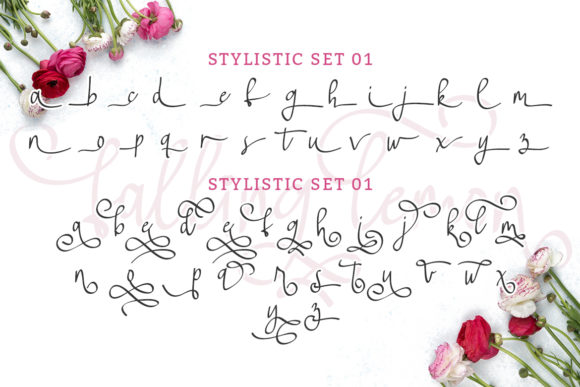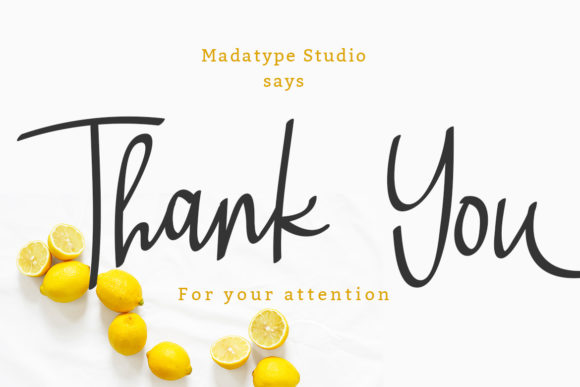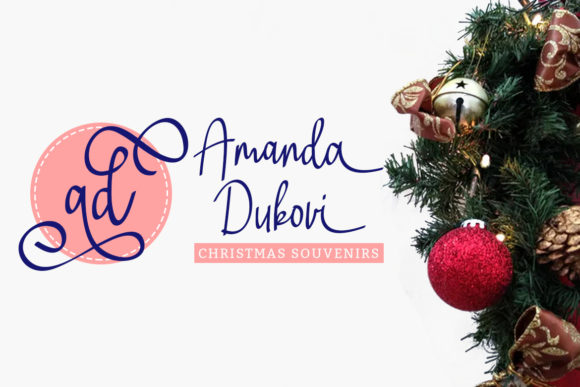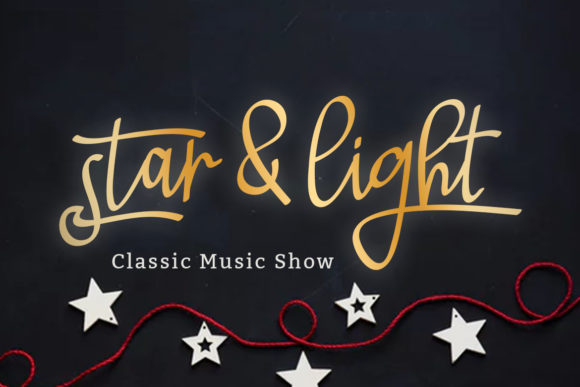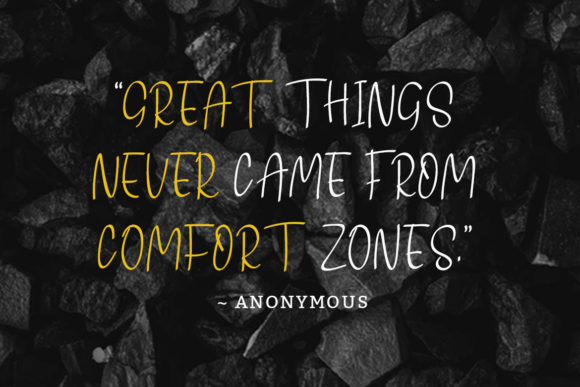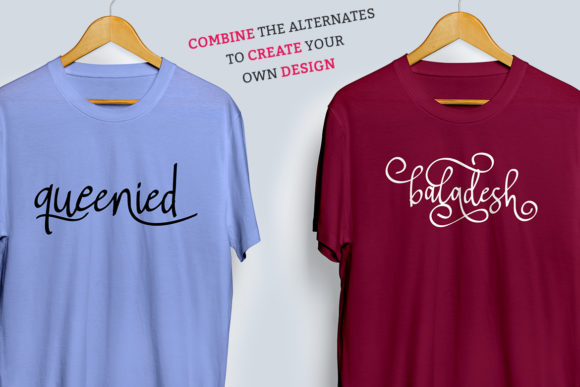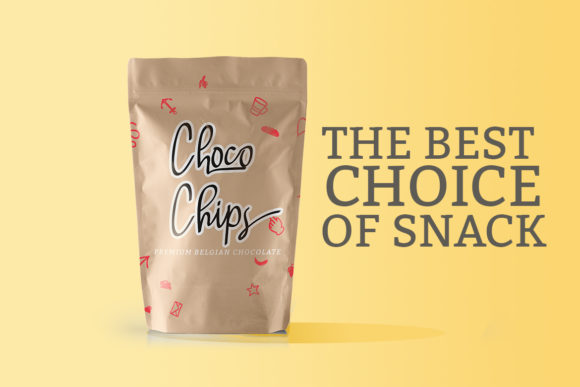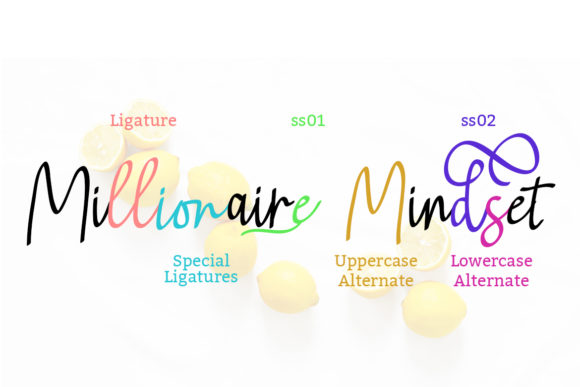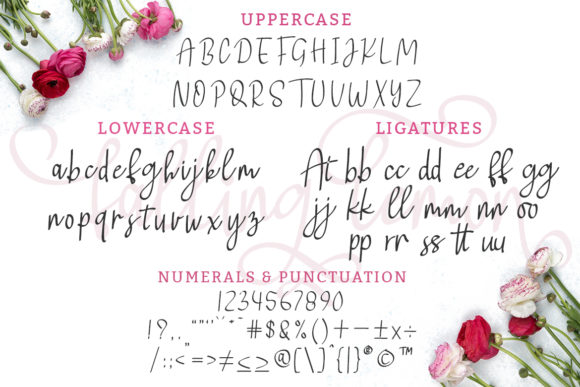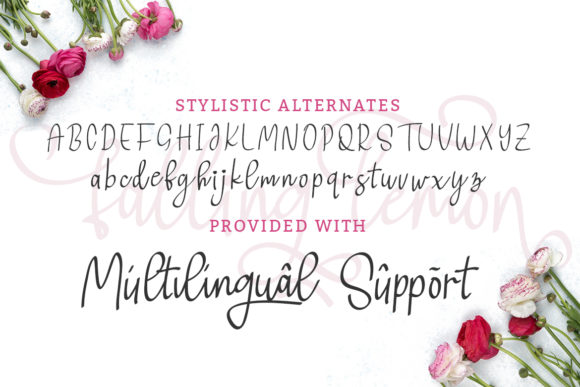
Falling Lemon Font
About Falling Lemon Font
Falling Lemon is natural handwritten font, manually written using a calligraphy pen. This font is perfect for logos, branding, t-shirt design and anything else that needs a natural calligraphy touch. Ignite your creativity with the many included alternates!